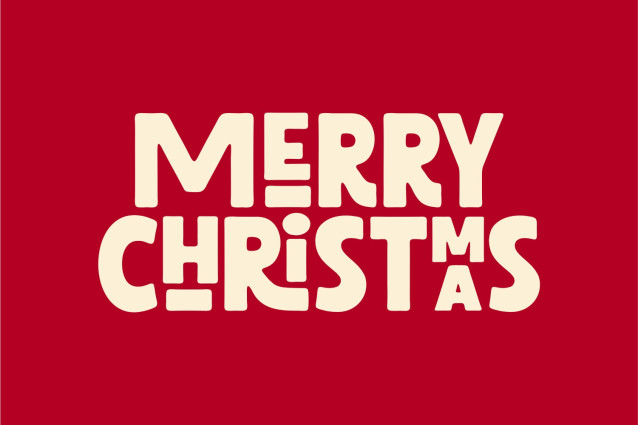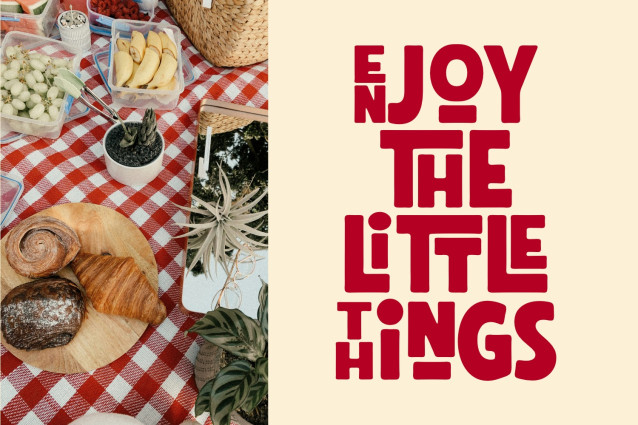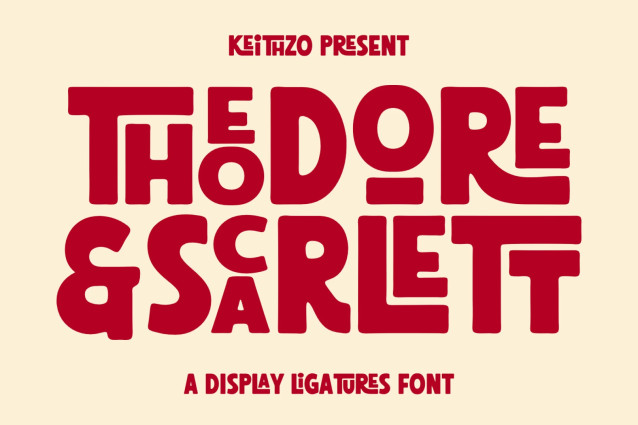
Theodore And Scarlett Font
Theodore & Scarlett – The Ultimate Bold Display Ligature Font
Unleash the full potential of your creative projects with Theodore & Scarlett, a premium display ligature font designed to transform standard text into a striking work of art. Combining bold, chunky letterforms with a playful, modern-retro personality, this font is the ultimate solution for designers, crafters, and brands looking to make an unforgettable statement.
The heart and soul of Theodore & Scarlett lies in its heavy, blocky architecture balanced beautifully by smooth, softly rounded corners. It features an ingenious collection of interlocking and nested ligatures, allowing smaller characters to gracefully stack inside or beneath dominant letters for an instant custom-lettered feel.